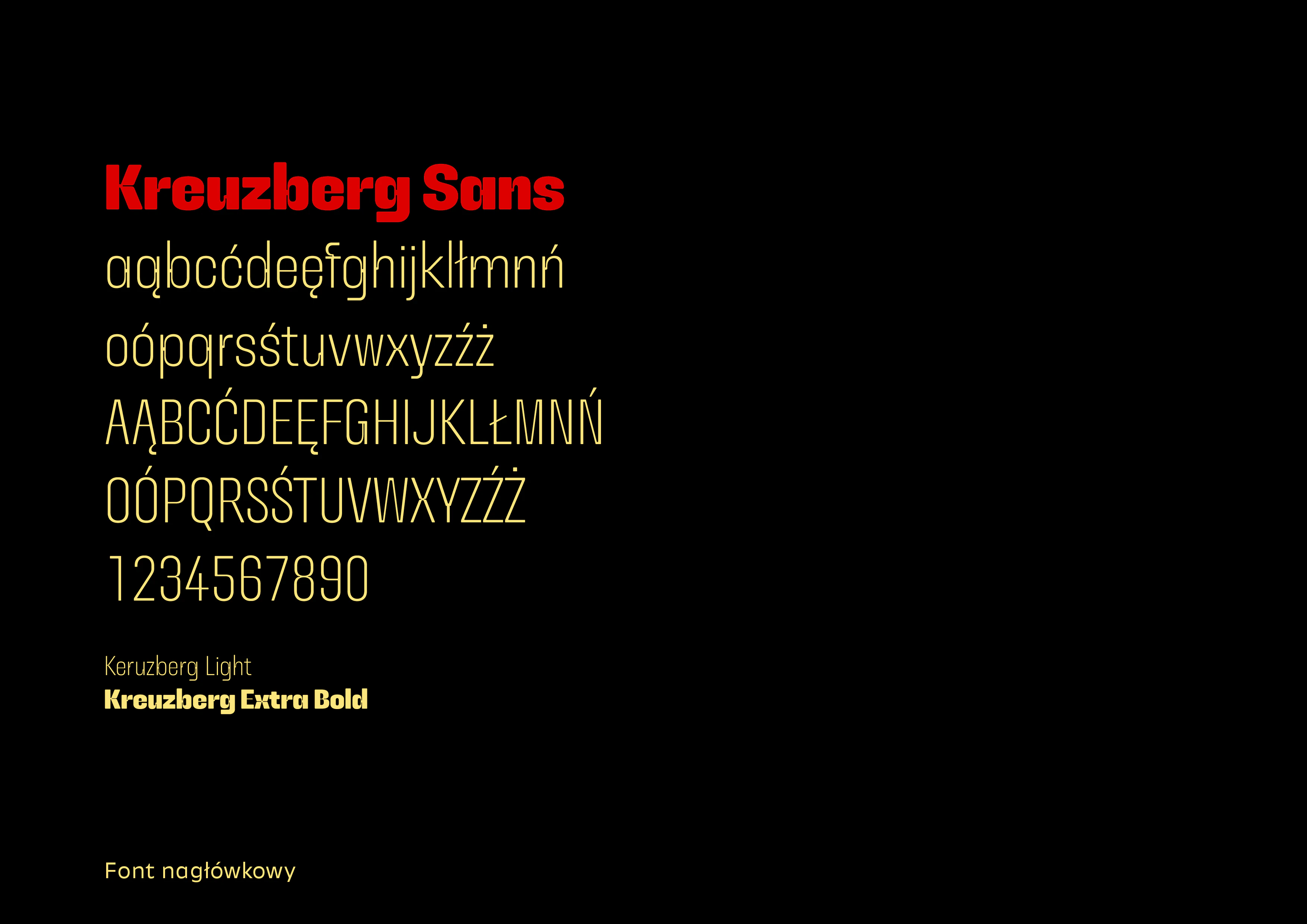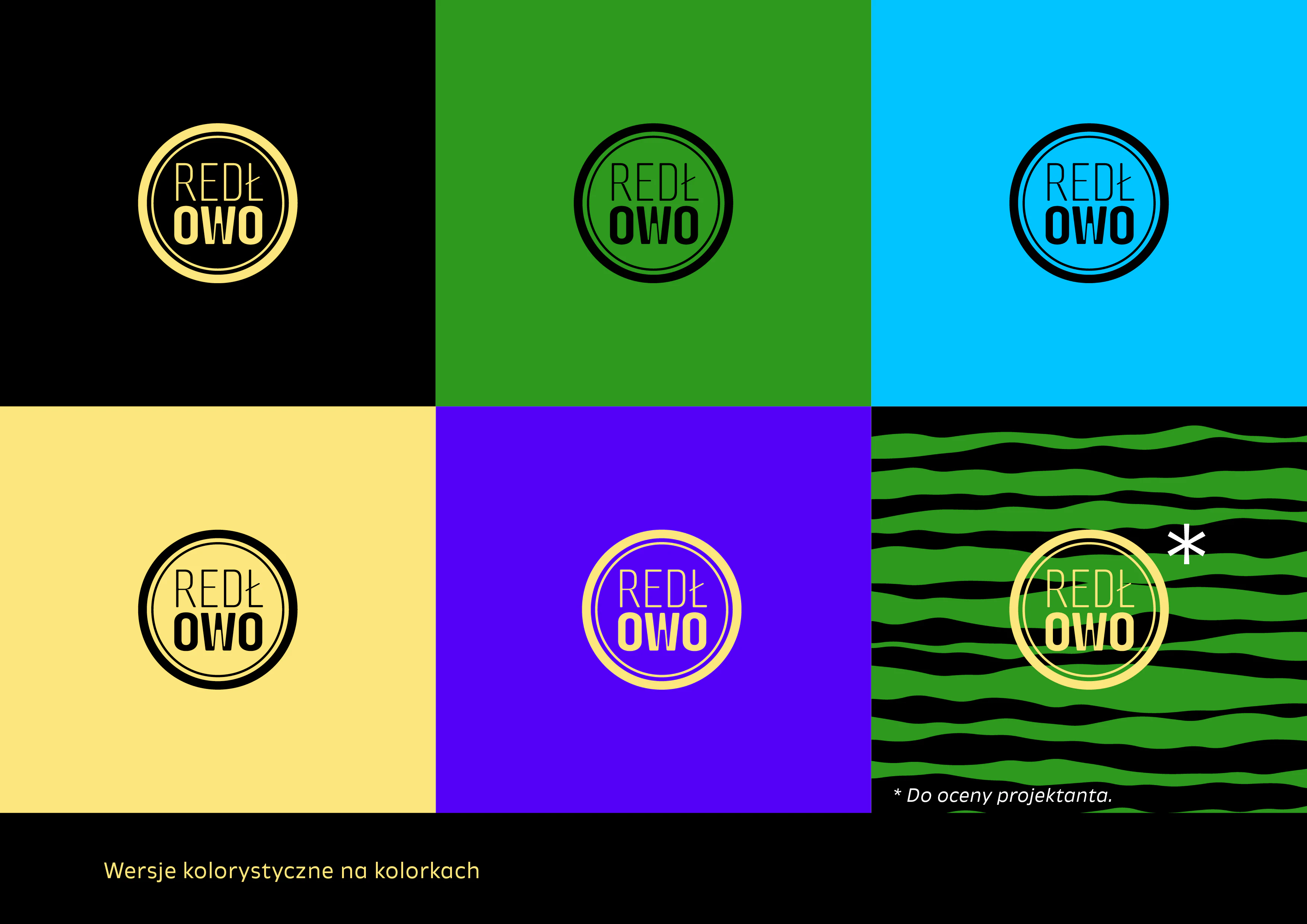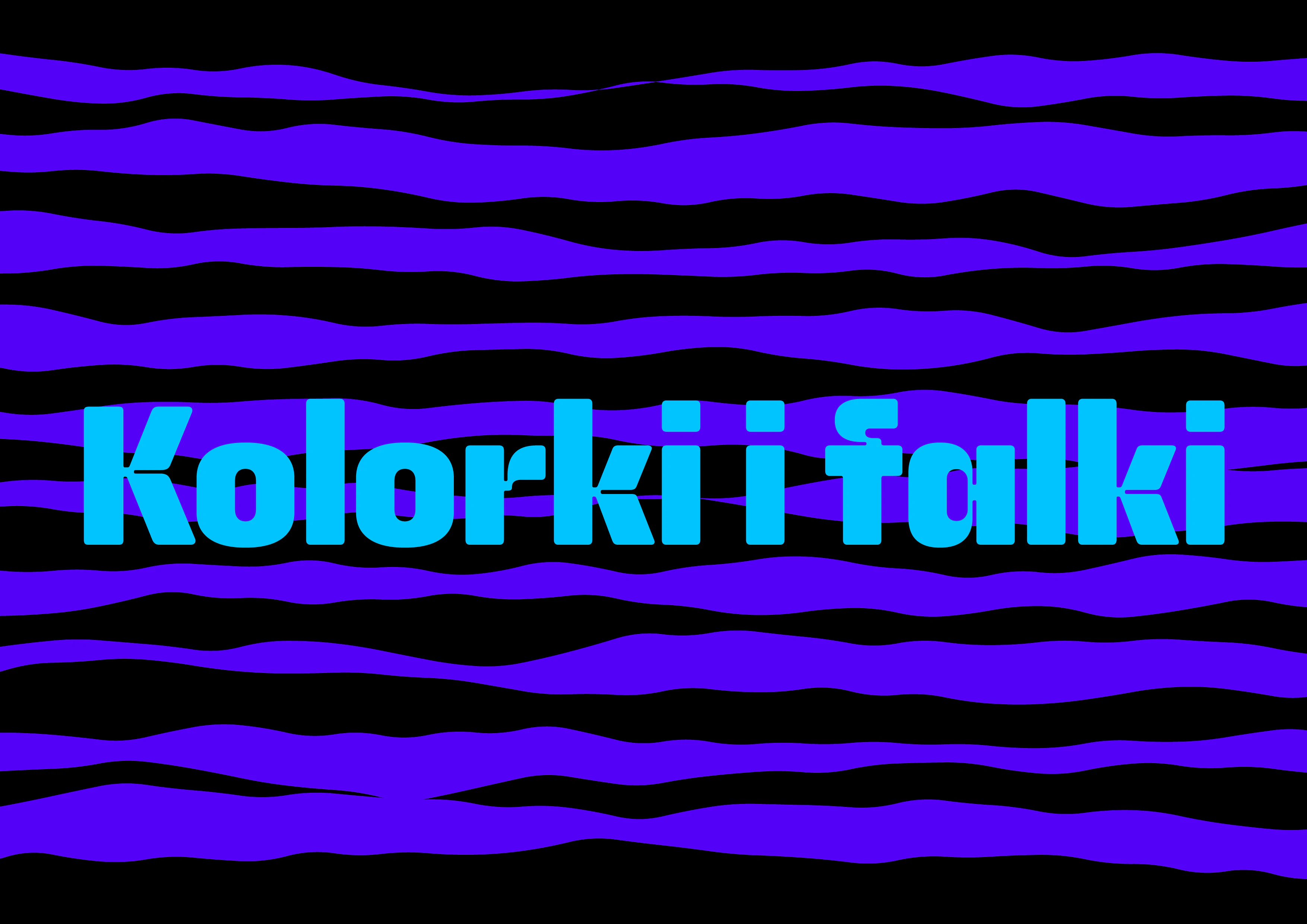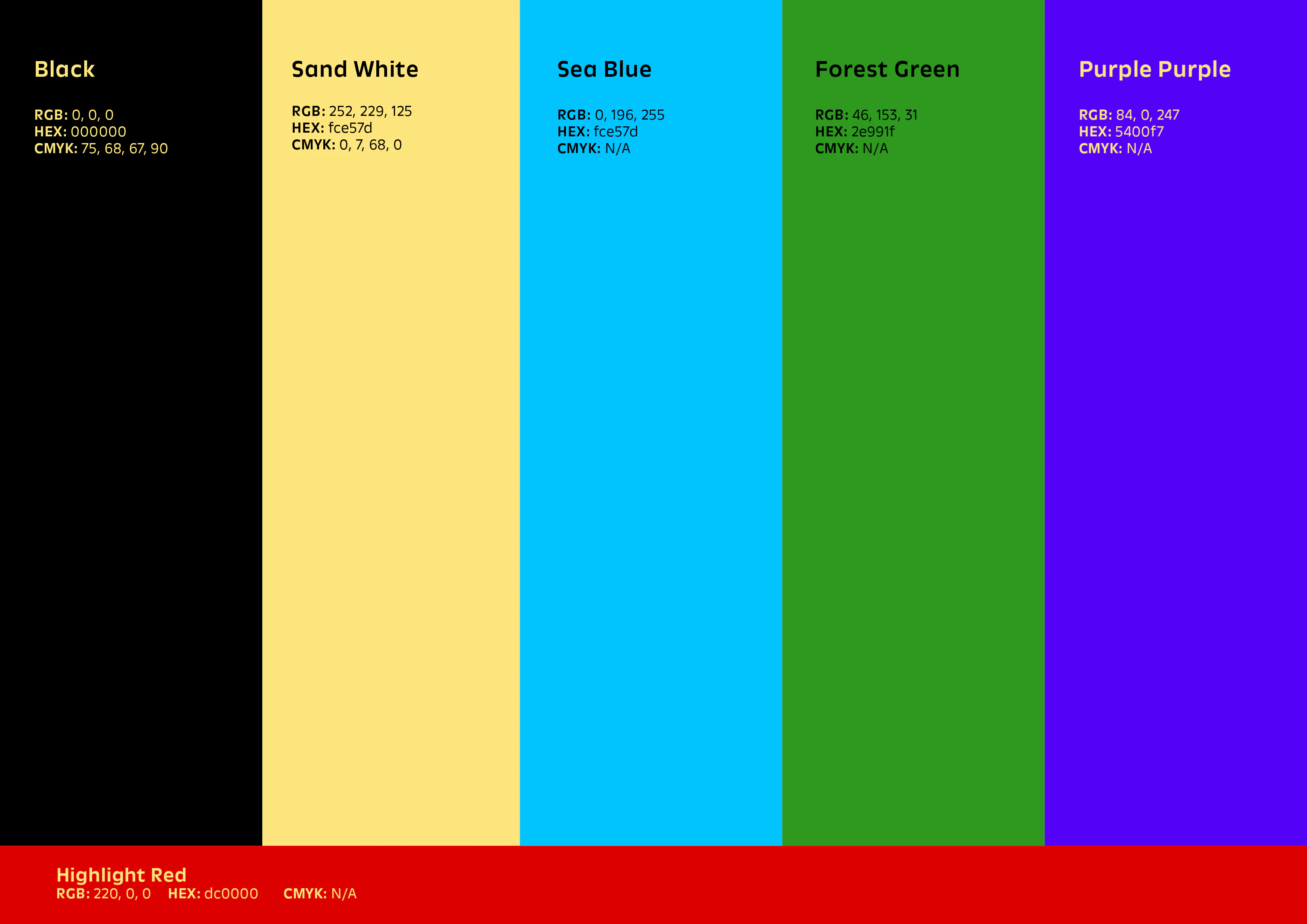
Redłowo
Branding and visual communication.
Redłowo Marketing Agency
Redłowo is a marketing agency based in Gdynia, Poland. It closely cooperates with local cultural institutions and startups. Working closely with their team, we established a bold visual language. Patterns which were generated with code – are inspired by sea waves, which are always present in Gdynia. We decided on using a very bold contrasting colours. The Typeface used in the materials, Kreuzberg, was designed by me. It’s geometric shapes fit well as unconventional take on modernism which is ever present in architecture of Gdynia.